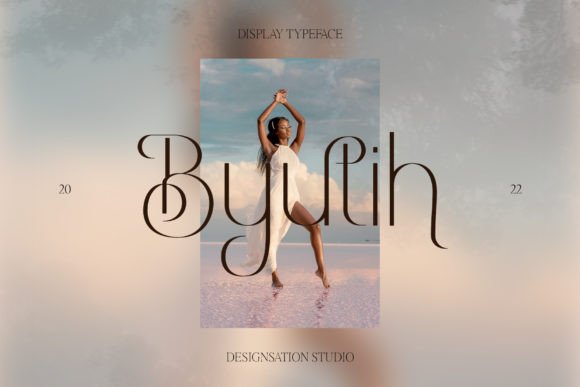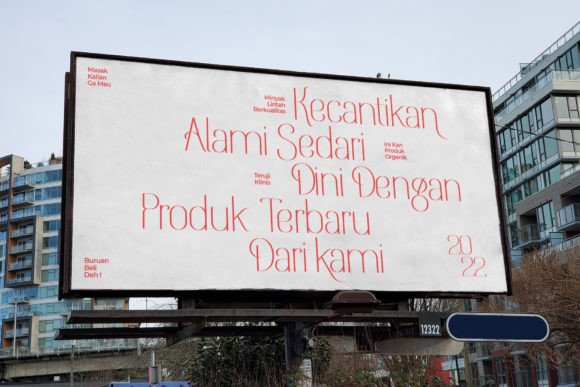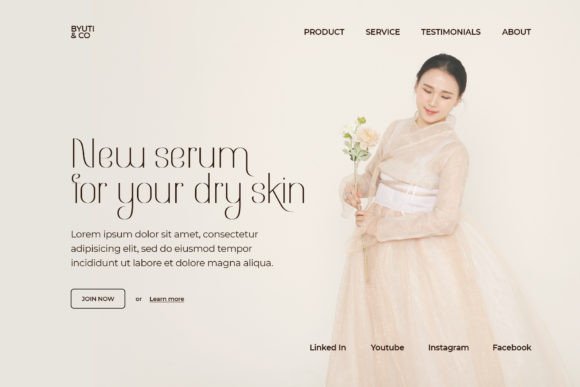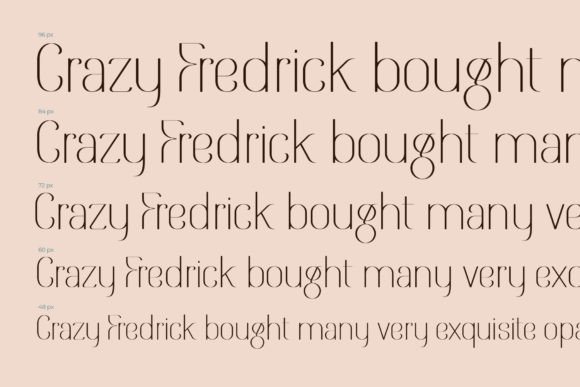
Byutih Font: Elegant Sans Serif for Modern Logo Design & Branding
About the Byutih Font
Let us introduce you to Byutih Font, where timeless design meets modern craftsmanship. Byutih is an elegant, delicate and uniquely designed sans serif font. It is PUA encoded which means you can access all of the glyphs and swashes with ease! Fall in love with its incredibly versatile style and use it to create spectacular designs!
Byutih’s delicate nature makes it ideal for projects requiring a touch of elegance, such as branding for high-end products, sophisticated logos, or invitations. It excels in headlines, short text blocks, and packaging design where its refined forms can shine. However, its low x-height and thin strokes make it less suitable for body text or UI elements where readability is paramount.
Pairing Byutih effectively requires considering its subtle elegance. A geometric sans-serif like Montserrat would provide a strong, modern counterpoint, enhancing readability in supporting text. For a warmer feel, a classic serif like Garamond could create a sophisticated contrast.
Byutih projects a feeling of refined modernity. Its personality is understated yet elegant, making it a versatile choice for brands aiming for a sophisticated and timeless image.